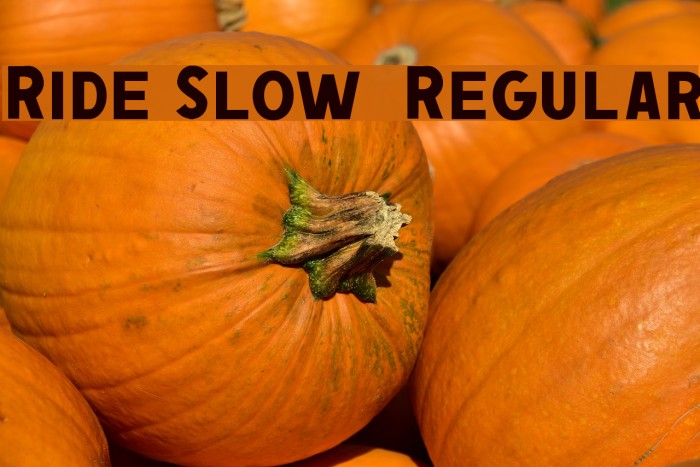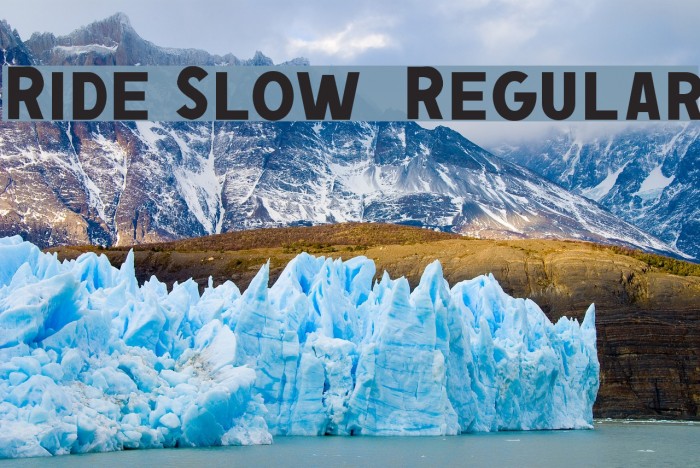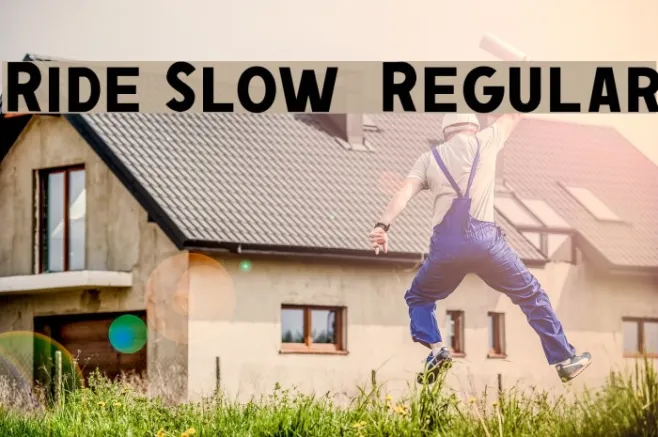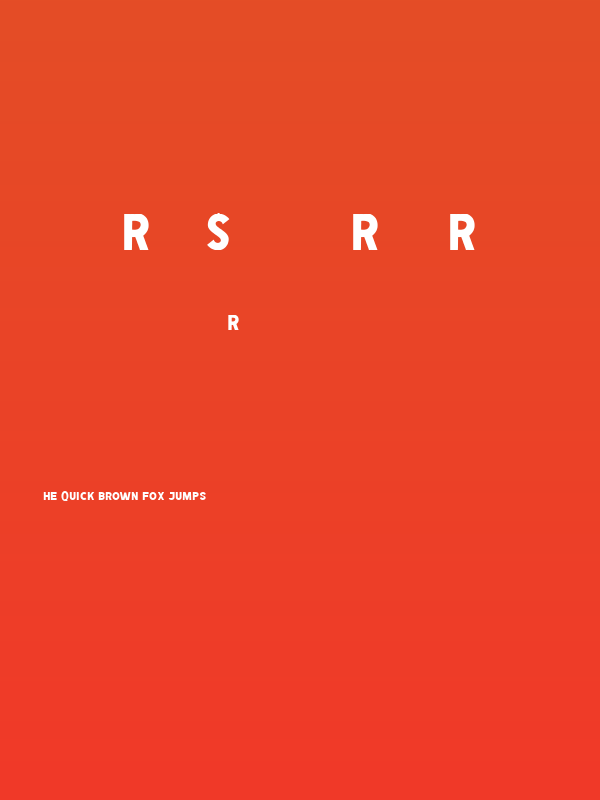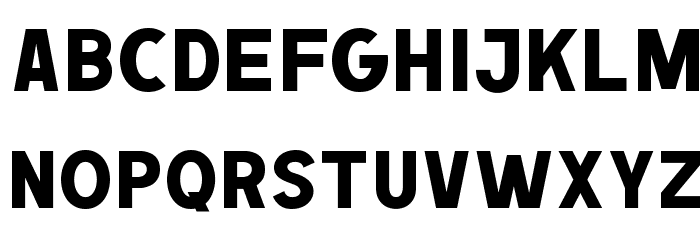
Ride Slow DEMO Regular Font
Ride Slow DEMO Regular Description
This font features a bold and robust design, characterized by thick, uniform strokes that convey a sense of strength and stability. The uppercase letters are prominent and well-defined, making them highly legible and suitable for impactful displays. The font maintains a consistent weight throughout, ensuring a cohesive appearance across all characters. Its straightforward, no-nonsense style is ideal for conveying clear messages without unnecessary embellishments. The spacing between characters is balanced, providing a clean and organized look that enhances readability.
| Proposed Projects | Ideal for headlines, posters, branding materials, and any project requiring a strong visual impact. |